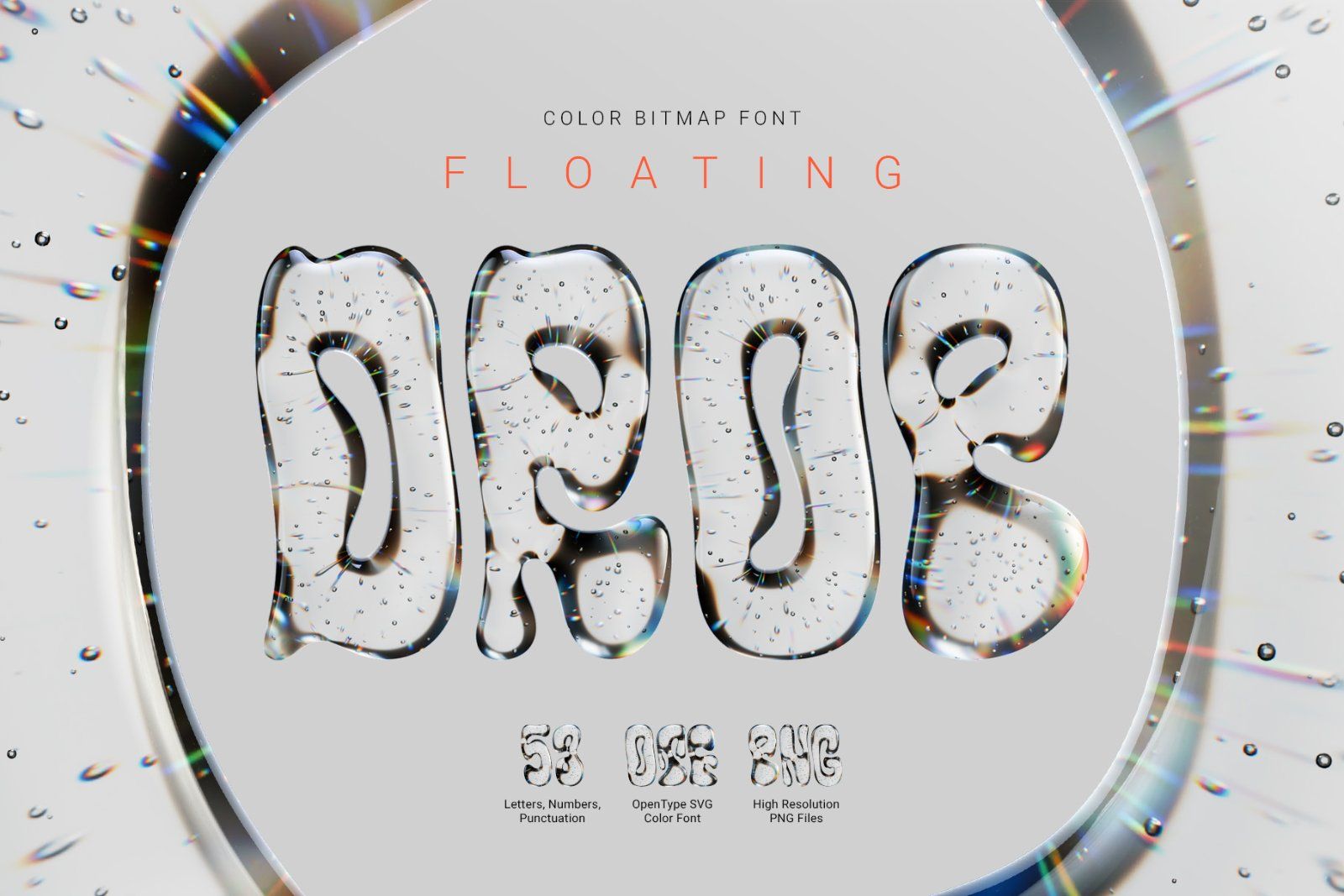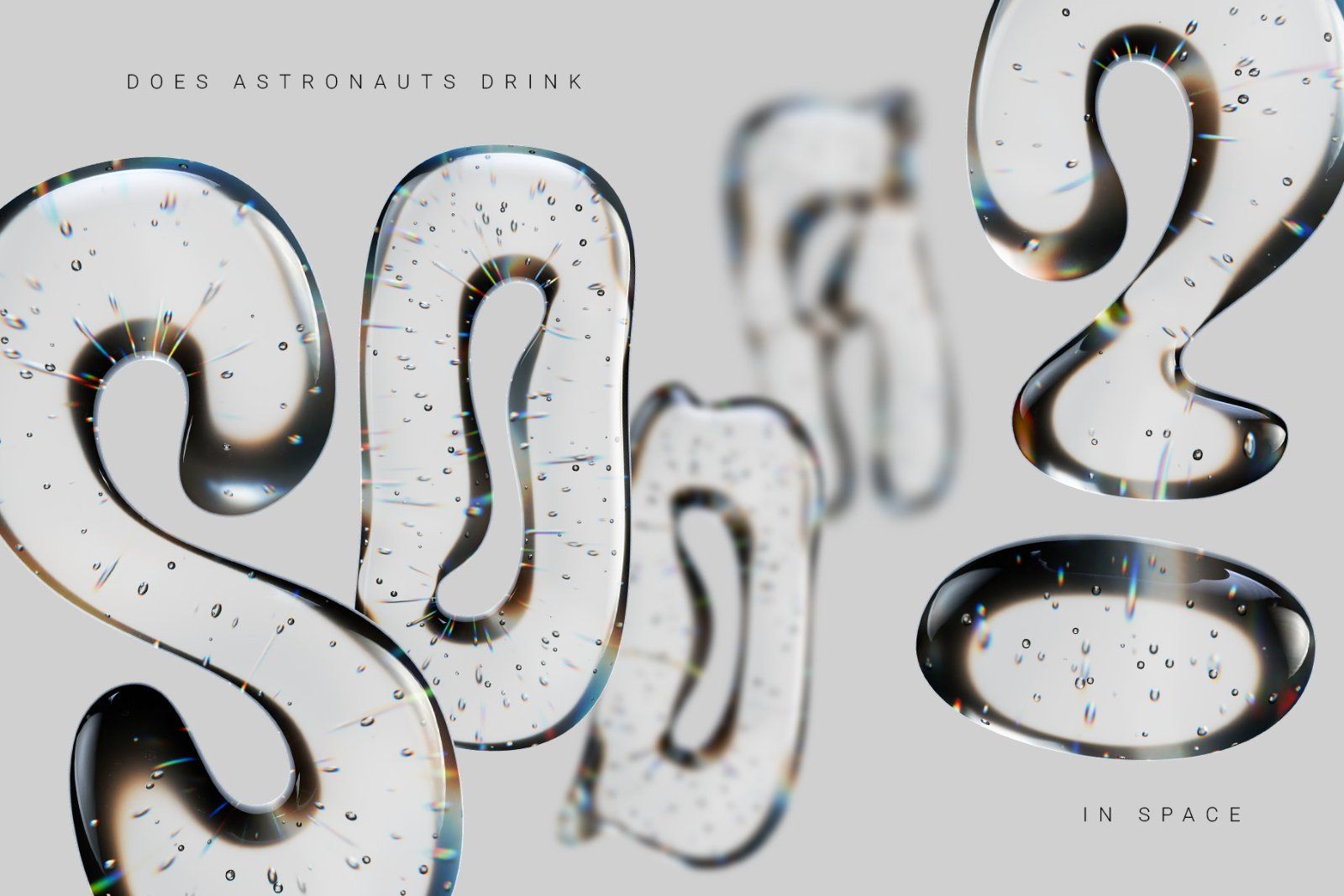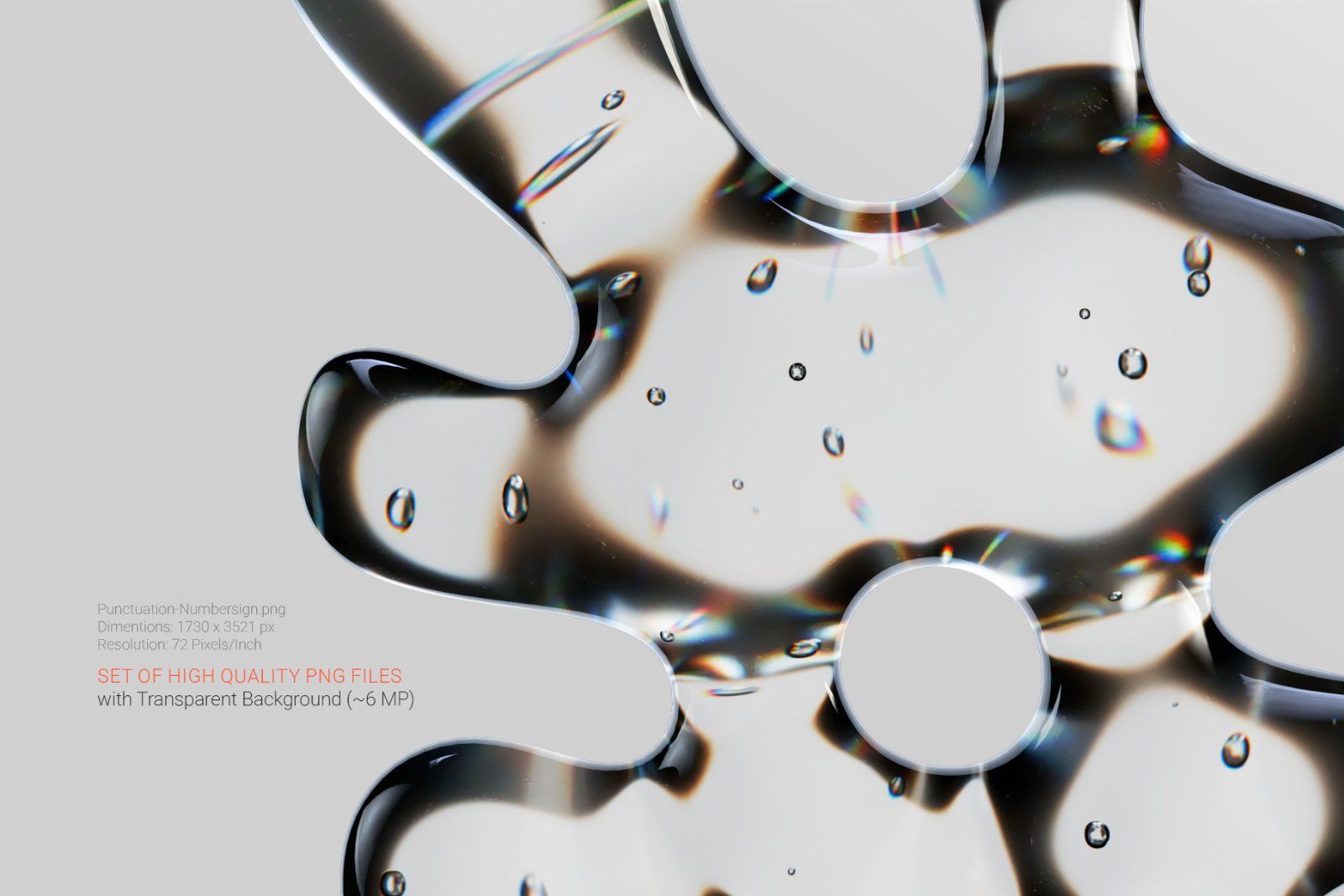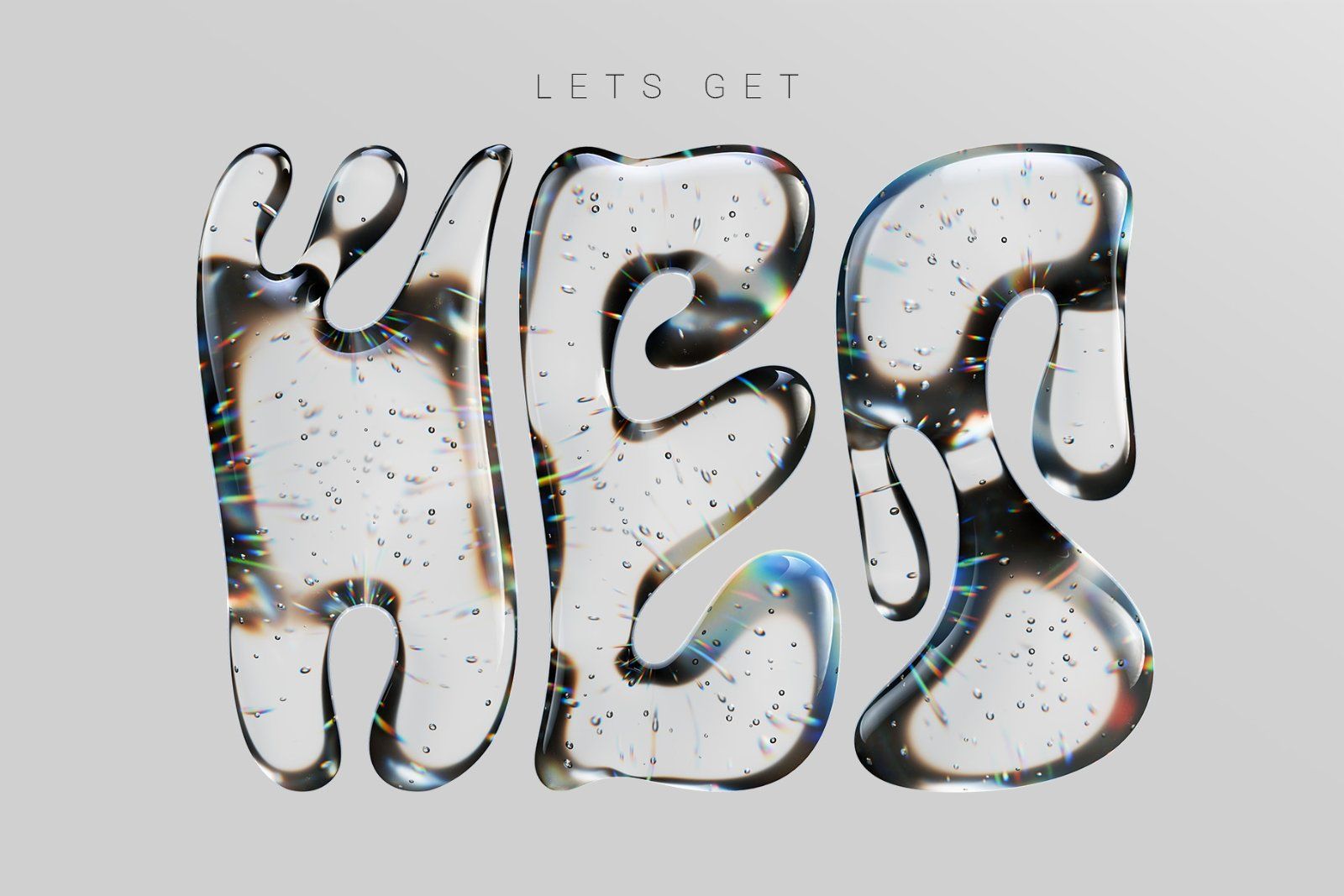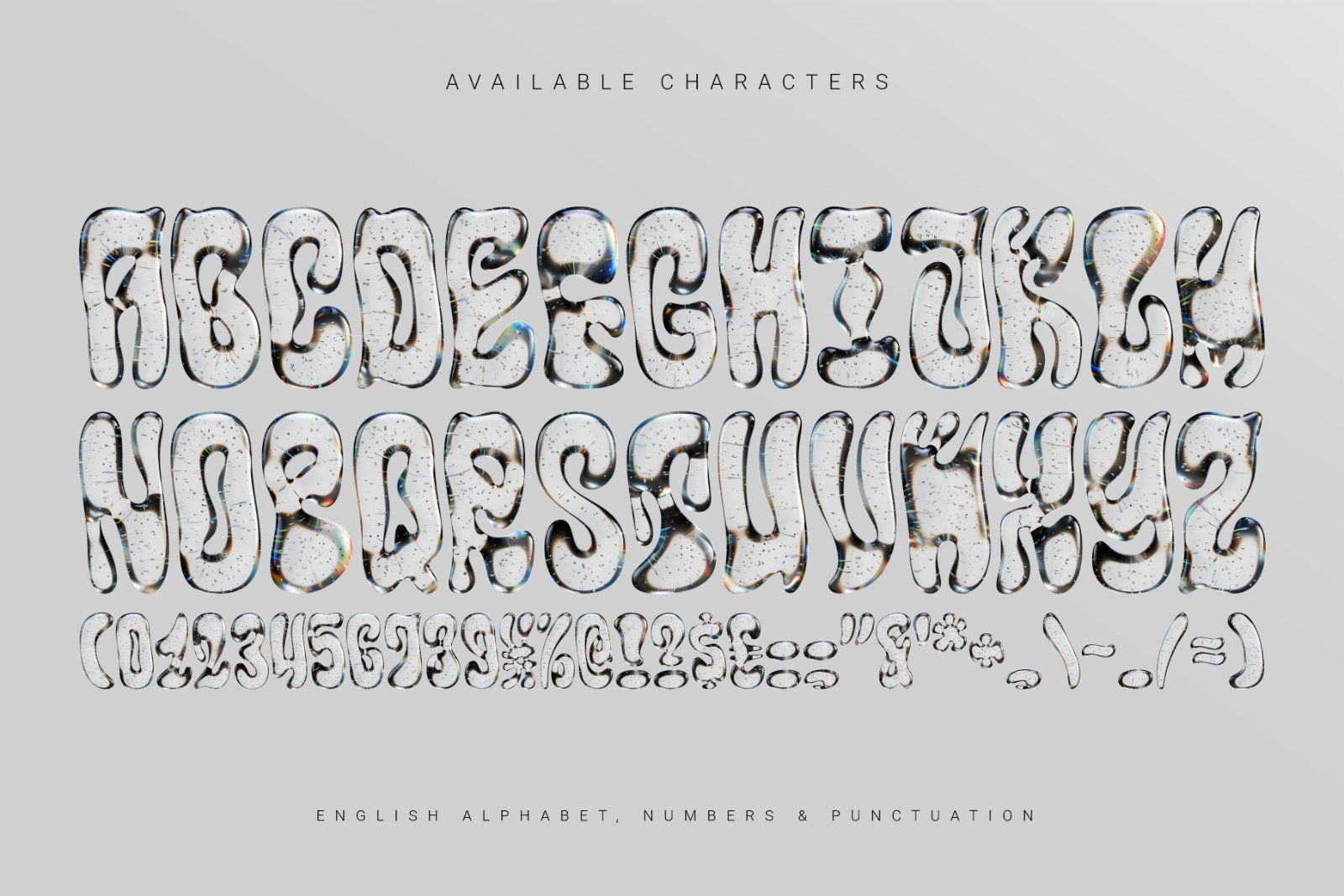
Floating Drop is a smooth, 3D bitmap font featuring a transparent, refractive surface filled with playful bubbles. The design looks like a blob of water drifting in the zero-gravity field of a space station. Base shape of a letters has a groovy foundation with a nicely inflated shape.